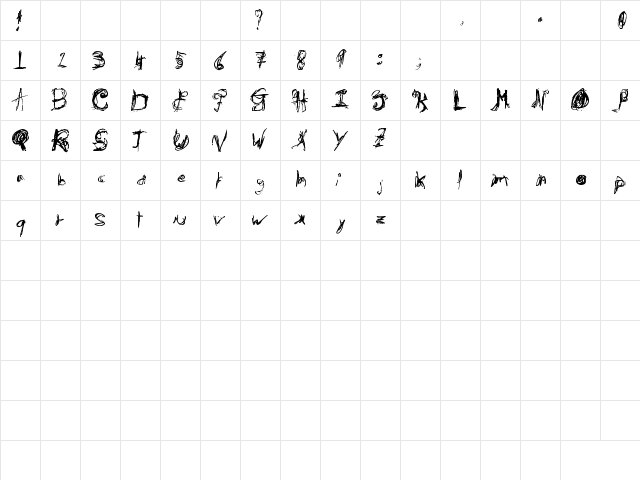
Don't Wanna Regular
Design Context for Don't Wanna Typeface
Don't Wanna is a composed and adaptable typeface that performs quietly and consistently across a wide range of design contexts.